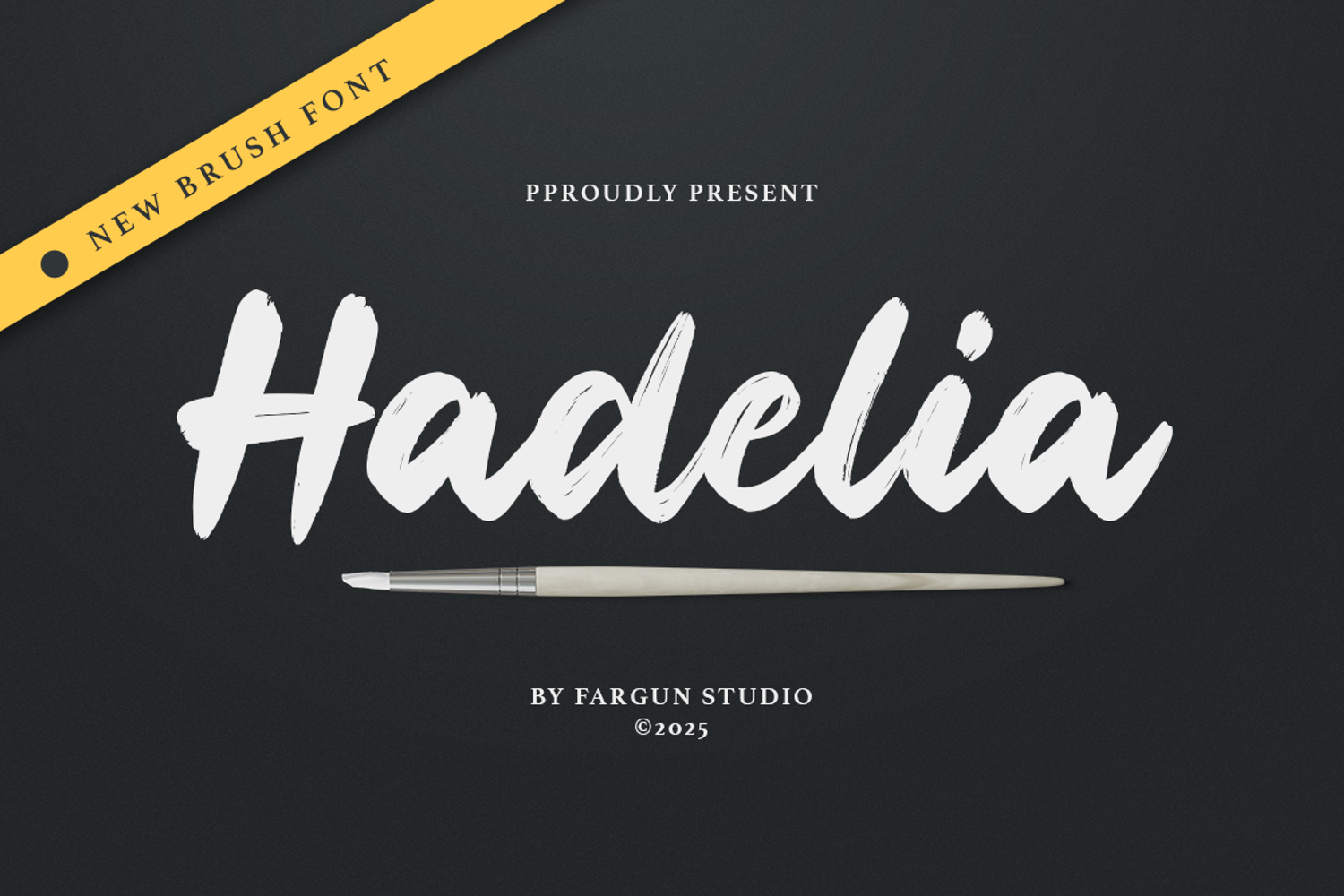
Hadelia
Hadelia – Bold Brush Script
Hadelia is a bold and expressive brush script font that captures the beauty of hand-painted lettering. Crafted with authentic brush strokes, Hadelia brings a natural and dynamic feel to your creative projects. Whether you're working on branding, posters, social media graphics, or packaging designs, this font will give your work a confident, handcrafted look.
Let your creativity flow with Hadelia – a brush script that speaks with bold energy and artistic flair.